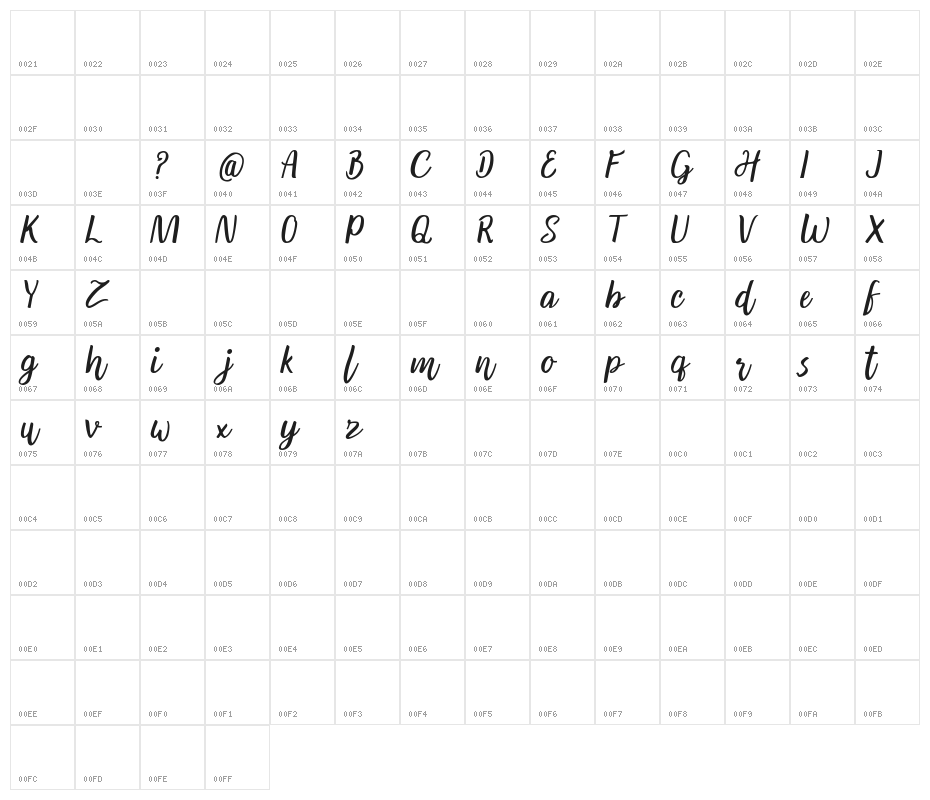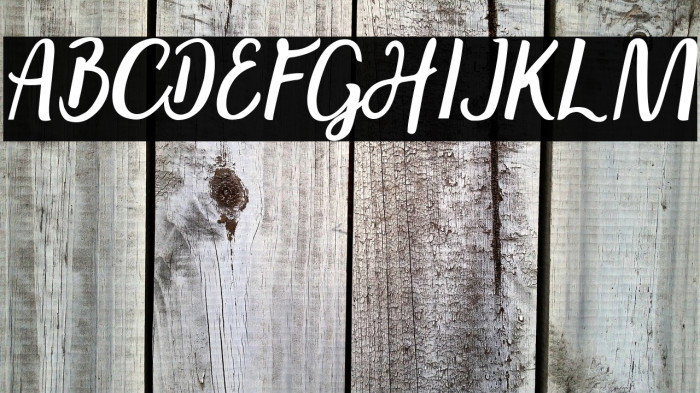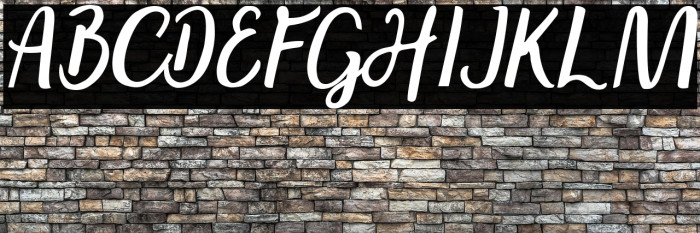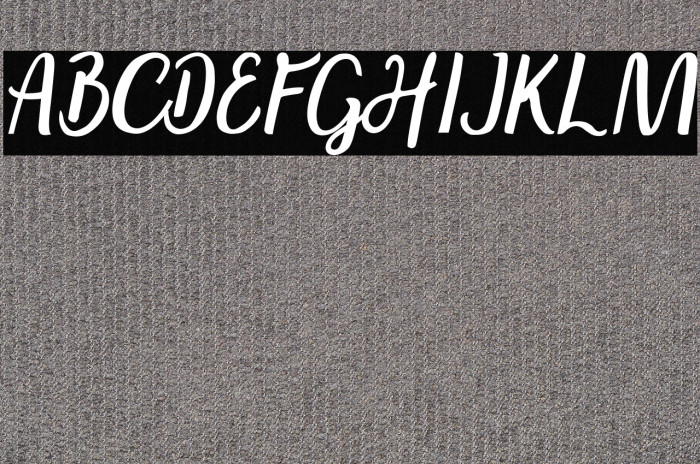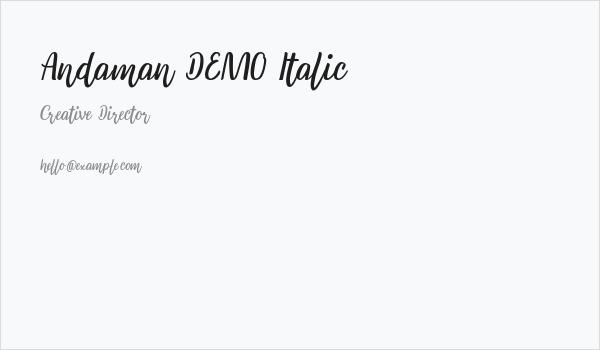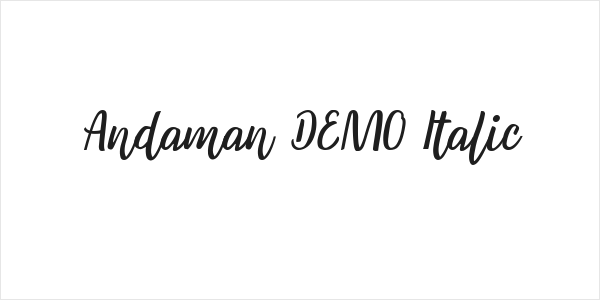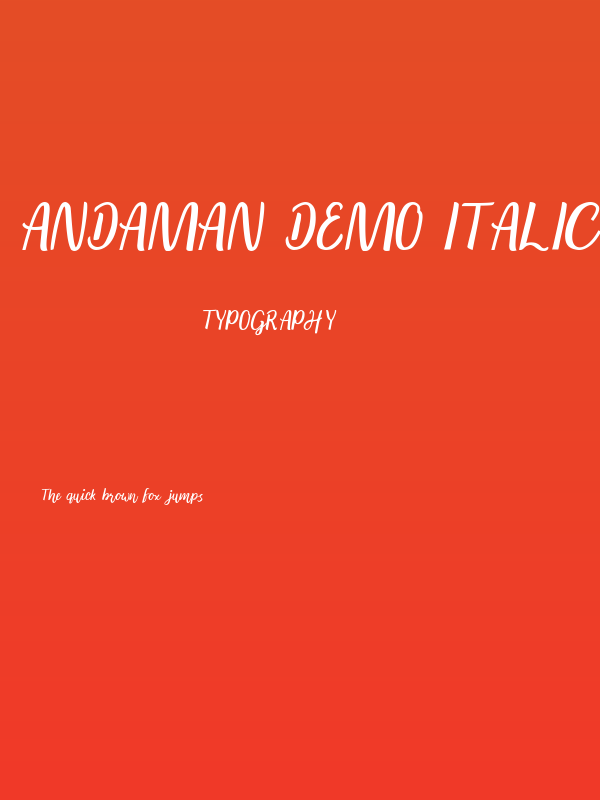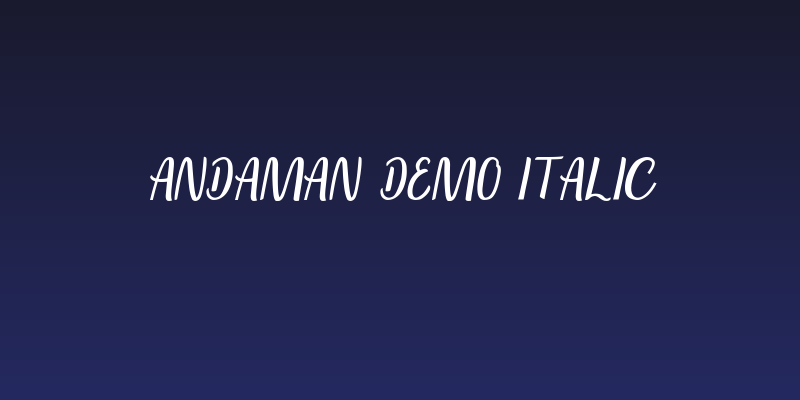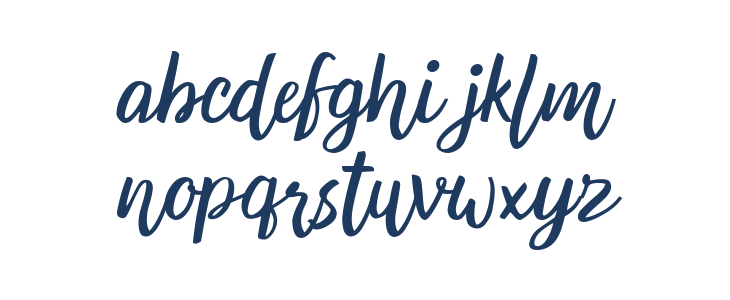
Andaman DEMO Italic Font
Andaman DEMO Italic Description
This font features a dynamic and flowing script style, characterized by its elegant and smooth curves. The letters are connected in a fluid manner, creating a sense of movement and grace. The uppercase letters are bold and prominent, while the lowercase letters maintain a consistent flow, enhancing readability. The overall design exudes a modern yet classic appeal, making it versatile for various design projects. The italic slant adds a touch of sophistication, perfect for creating stylish and eye-catching text.
| Proposed Projects | Ideal for wedding invitations, branding, logo design, and elegant packaging. |